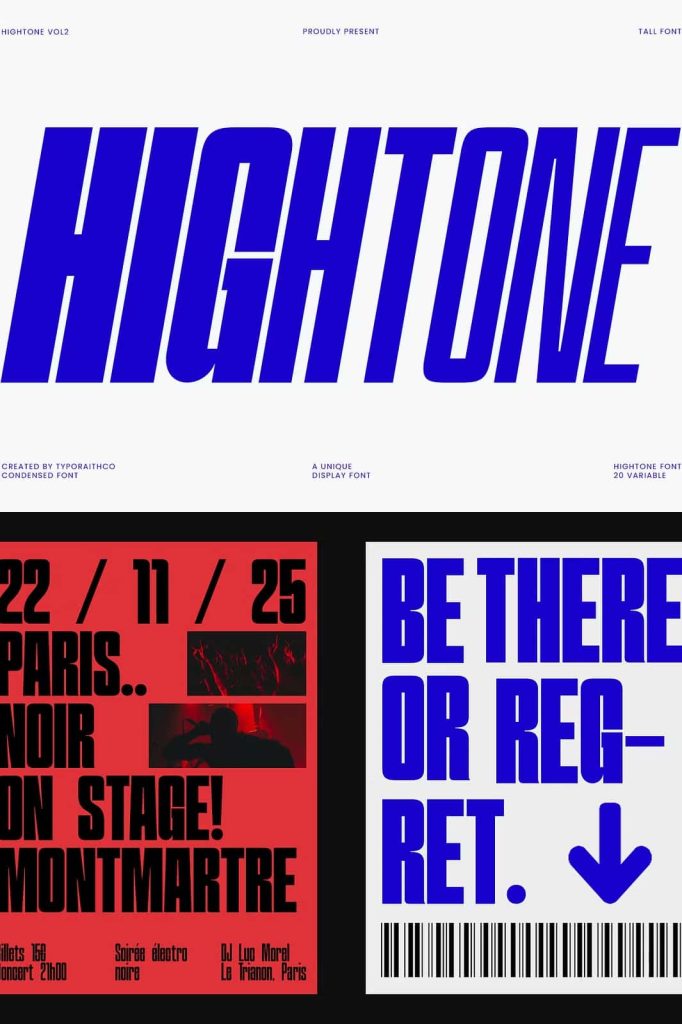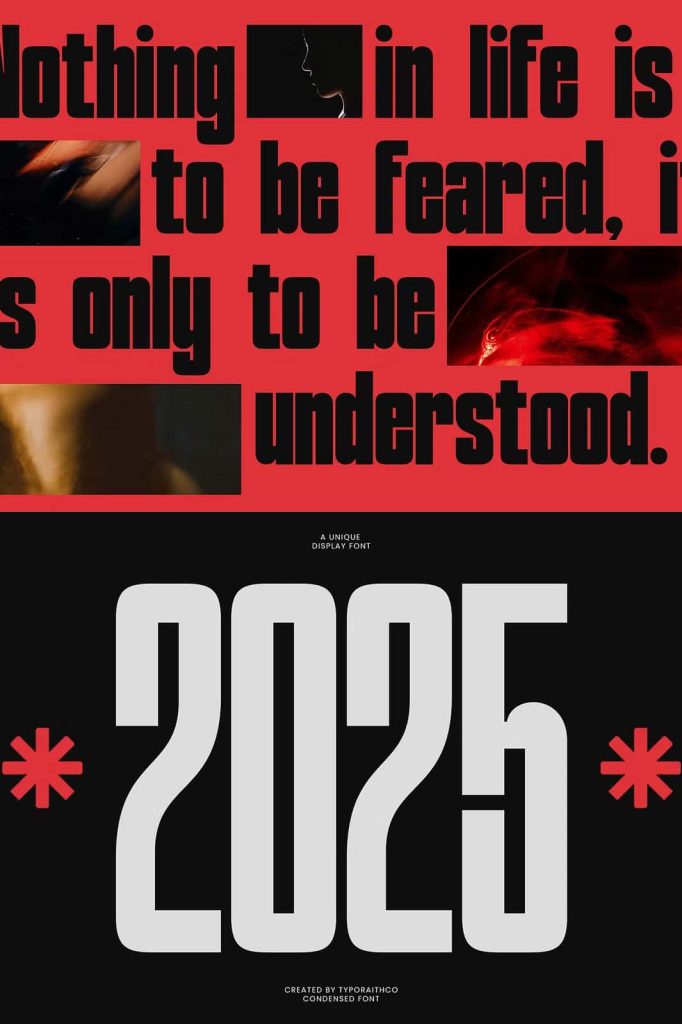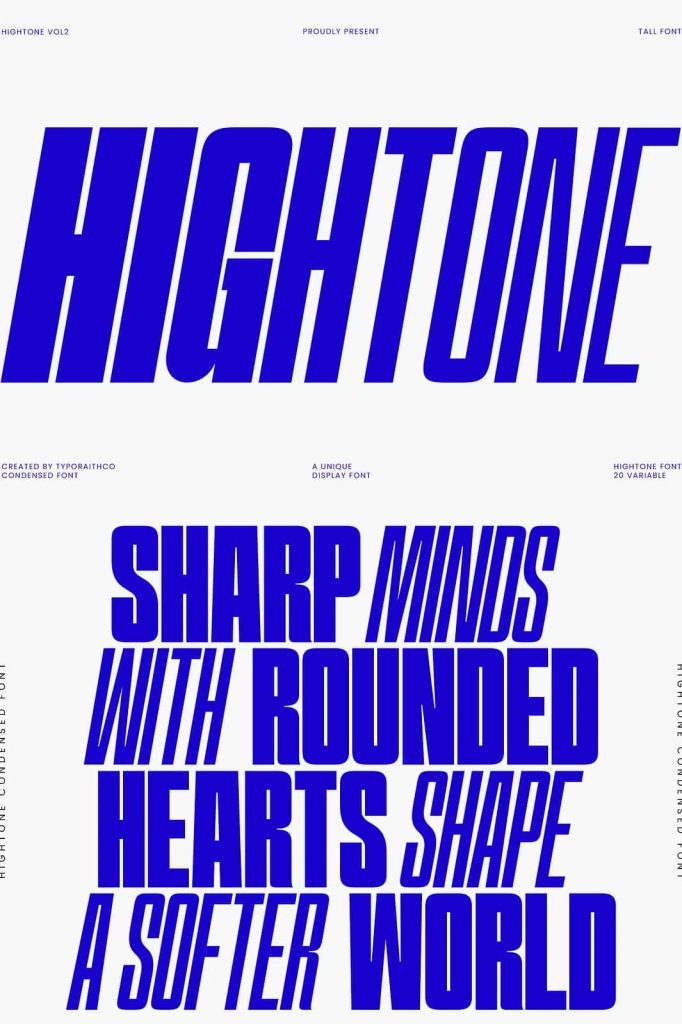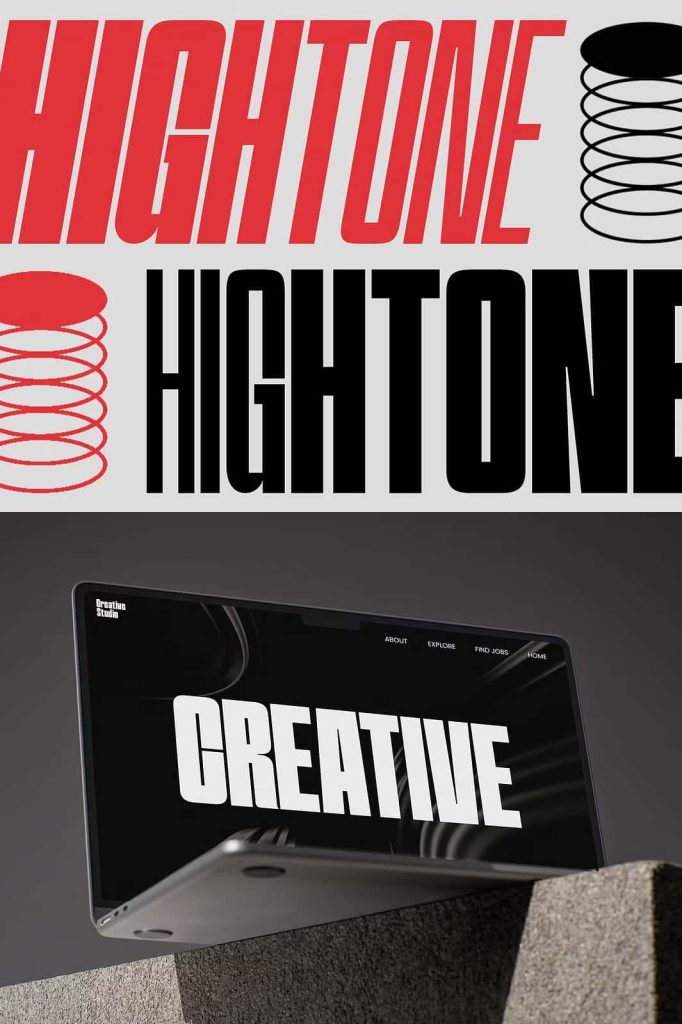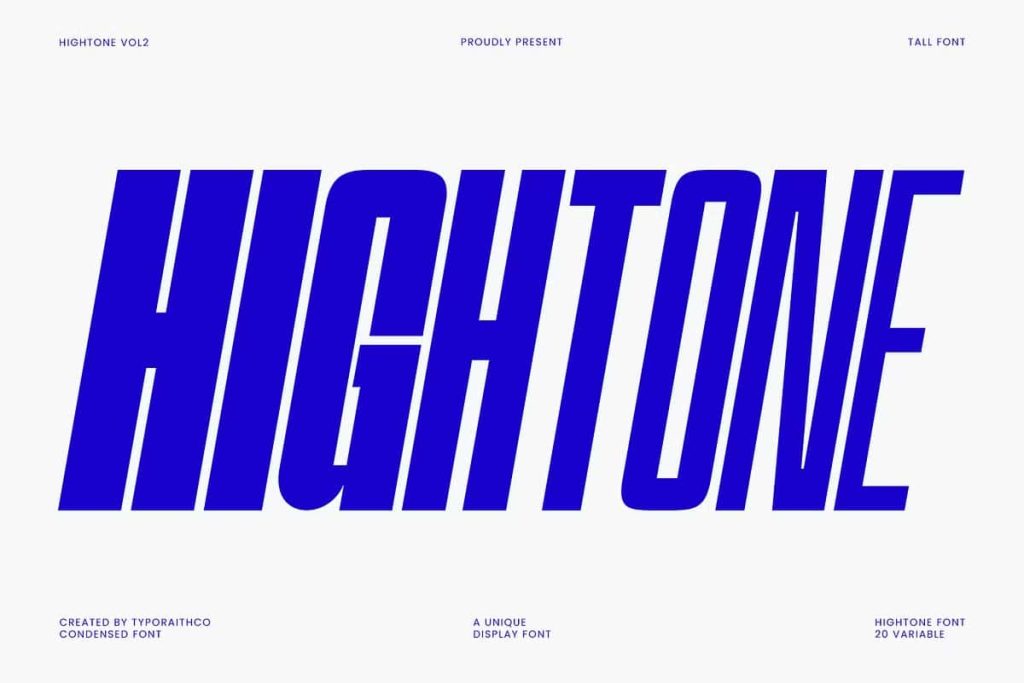
Hightone Font Family
Hightone Condensed Display Font
Hightone Condensed is a modern, high-impact display font that commands attention with its tall, narrow proportions and confident vertical stance. Designed to stand strong in bold layouts, this typeface maximizes space while delivering powerful visual presence. Its tight spacing and condensed structure allow designers to create dramatic headlines and striking compositions without overwhelming the design.
If you want typography that feels assertive, contemporary, and efficient, Hightone Condensed delivers exactly that. It transforms simple text into structured, eye-catching statements that dominate both print and digital platforms.
Tall and Narrow for Maximum Visual Impact
Hightone Condensed uses height as its primary design strength. The elongated letterforms draw the eye upward and create a sense of movement and energy. This vertical emphasis builds intensity and makes headlines feel bold and commanding.
The narrow width allows you to fit more text into limited horizontal space without sacrificing clarity. This makes the font especially useful for posters, banners, and editorial titles where space efficiency plays a critical role. Designers can create compact yet powerful layouts that maintain strong readability.
Strong Vertical Presence
The vertical structure gives Hightone Condensed a distinctive architectural quality. Each letter stands firm and balanced, forming clean columns of text that feel organized and deliberate. This design approach enhances hierarchy and guides the viewer’s attention exactly where you want it.
Use this font when you want to emphasize strength, structure, and modern sophistication. It communicates confidence without unnecessary decoration.
Perfect for Headlines and Posters
Headlines require impact, and Hightone Condensed delivers it instantly. Its condensed form amplifies bold messaging, allowing titles to dominate layouts without consuming excessive space. Whether you design event posters, promotional banners, or advertising campaigns, this font helps your message stand out clearly and powerfully.
Poster design benefits especially from the tall proportions. You can stack words vertically, create dramatic line breaks, or stretch compositions across large formats while maintaining visual consistency. The tight spacing reinforces cohesion and prevents distracting gaps.
Create Attention-Grabbing Editorial Layouts
Editorial designers can rely on Hightone Condensed to establish strong typographic hierarchy. Use it for magazine covers, section headers, pull quotes, and feature titles. Its bold stance contrasts beautifully with lighter body text fonts, helping you build balanced yet dynamic layouts.
The font’s clean lines maintain readability while preserving high-impact style. This combination ensures your editorial content feels modern and engaging.
Ideal for Branding and Identity Systems
Branding demands typography that communicates personality at first glance. Hightone Condensed offers a contemporary aesthetic that feels bold, progressive, and structured. Its tall silhouette enhances logos, wordmarks, and brand slogans by adding distinctive character.
Because of its narrow width, the font adapts easily to compact brand applications such as social media headers, website navigation bars, packaging labels, and promotional materials. Designers can maintain strong brand presence even within limited design spaces.
Modern Appeal with Clean Precision
Hightone Condensed embraces simplicity and precision. It avoids unnecessary ornamentation and instead focuses on strong geometry and proportion. This clean approach supports modern branding across industries such as fashion, technology, architecture, media, and creative agencies.
Pair it with minimalist design elements to create a sleek visual identity. Combine it with contrasting serif or sans-serif fonts to add depth and typographic interest.
Optimized for Print and Digital Media
Hightone Condensed performs consistently across various formats. In print, it maintains crisp edges and clear letterforms on posters, brochures, packaging, and large-scale signage. In digital environments, it displays sharp clarity on websites, mobile screens, social media graphics, and digital advertisements.
The tight spacing and condensed design ensure text remains legible even at larger sizes. Designers can experiment with scale confidently, knowing the font retains its structural integrity.
Why Choose Hightone Condensed Display Font?
• Tall and narrow proportions for strong vertical emphasis
• High-impact style ideal for bold headlines
• Tight spacing for efficient space usage
• Perfect for posters, branding, and editorial layouts
• Modern and clean design suitable for print and digital use
Hightone Condensed display font empowers designers to build bold, structured, and modern compositions. Its vertical strength, compact width, and contemporary aesthetic combine to create typography that feels confident and purposeful. Add Hightone Condensed to your design toolkit and craft headlines and branding elements that leave a lasting impression.